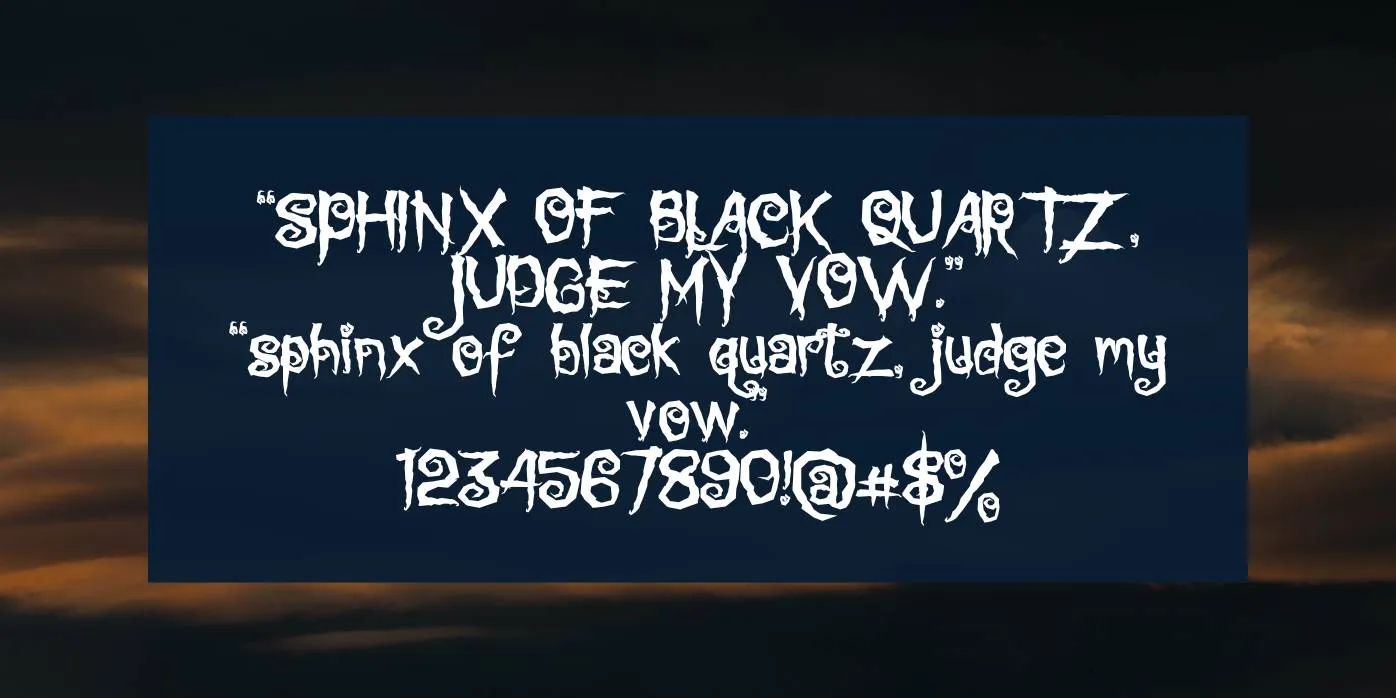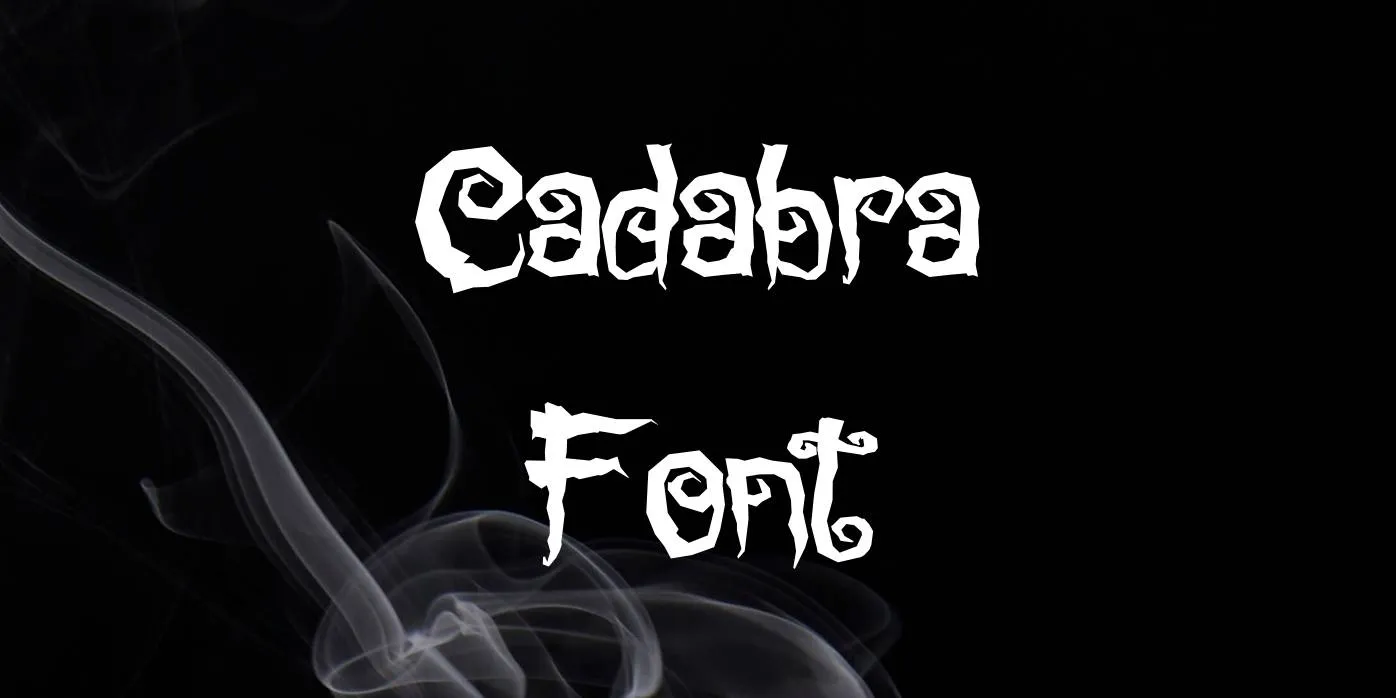
Cadabra Font
RT Studio designed this typeface. Cadabra Font is a fancy type font that has Horrible type of characters. The characters of this typeface include numbers, capital letters, lowercase letters, special letters, and many more. The typeface that is best for pairing with this texture is cute halloween drawings font.